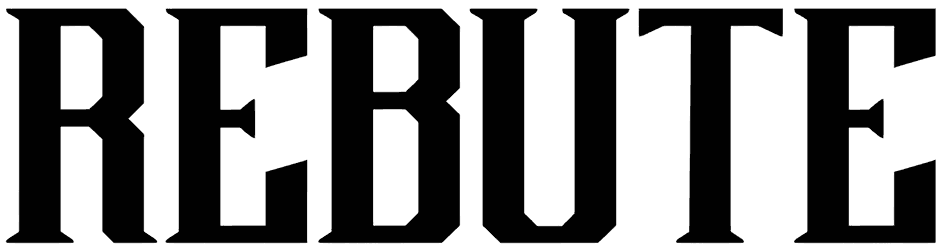
Rebute Font
Completely concrete and reliable, with tall and explicit end edges that seem to evoke the aesthetic of the 70s and 80s, this barbershop font is intended to grow in any situation; posters, western movies, branding, or whenever the originality of the content is desired.
Rebute, in two sets of capital letters, while doesn’t keep up lowercase, can go over with a fine-tooth comb at the moment and astound all audience. For achieving more serif font, search out our rich website soon!